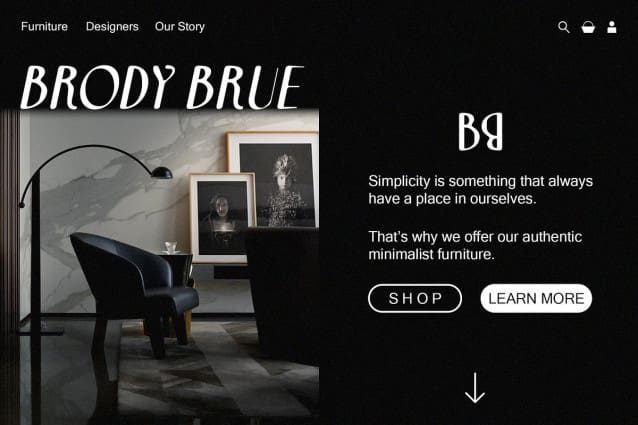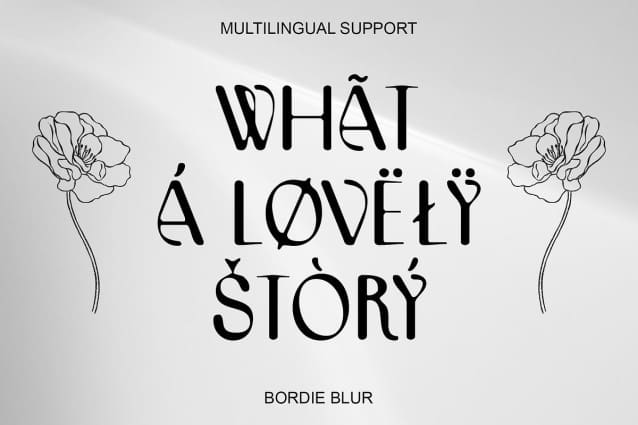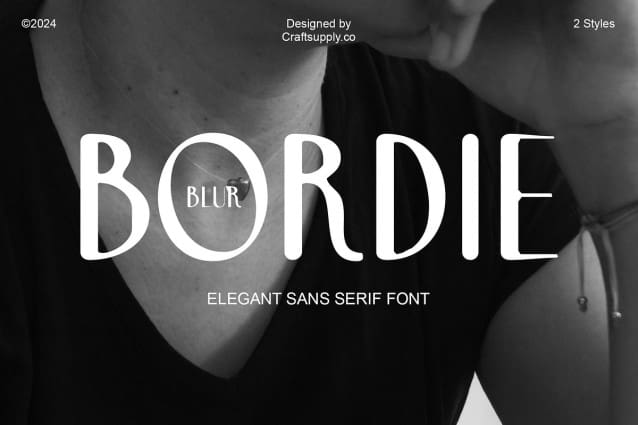
Bordie Blur Font
Bordie Blur Font is a modern sans-serif font with an elegant feel and a blur effect, typically suitable for designs that aim to combine a luxurious and modern look. Using a modern sans-serif font with an elegant feel and a blur effect can add a luxurious and modern touch to your design, creating a unique and attention-grabbing impression.
With its elegant feel and blur effect, Bordie Blur Font is perfect for projects that require a blend of luxury and modernity. Whether used in branding, editorial design, or packaging, this font adds a sense of sophistication and refinement to your designs.
Bordie Blur Font prioritizes visual appeal, ensuring that your designs are both luxurious and captivating. Its blur effect adds a dynamic and artistic element that resonates with viewers, making it perfect for projects that aim to make a statement.
Whether you’re designing a high-end fashion magazine, creating a sleek website, or developing packaging for a luxury product, Bordie Blur Font is the perfect choice for projects that demand attention and elegance. Its elegant feel and blur effect ensure that your designs will always stand out and leave a lasting impression.